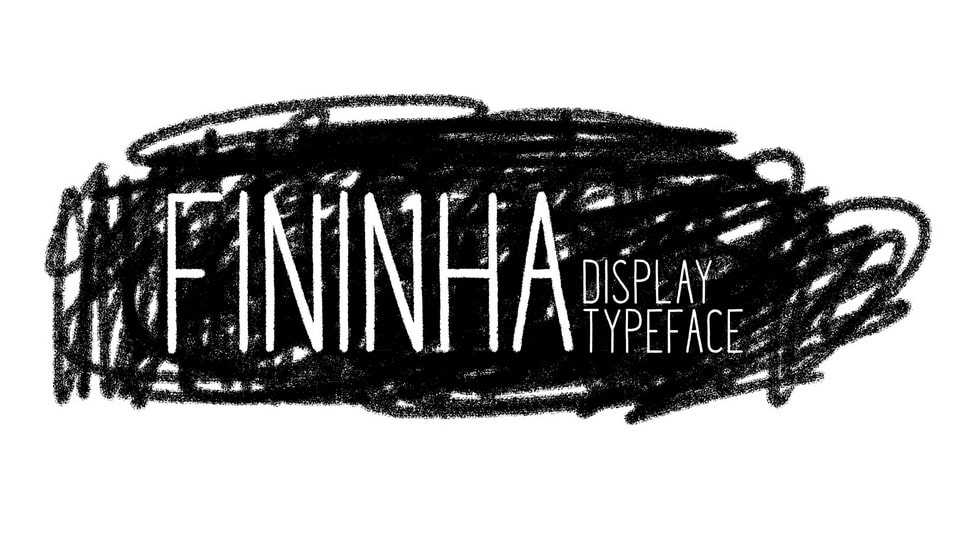
Download Fininha font, a display typeface developed using lettering, digitization, and vectorization techniques. With 163 glyphs, including glyphs for the Spanish language, Fininha font draws inspiration from the common signage found in everyday life in Latin America.